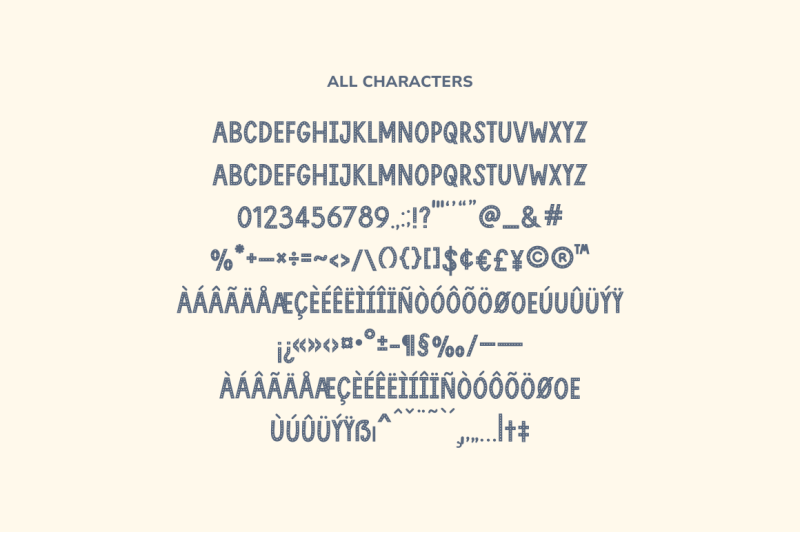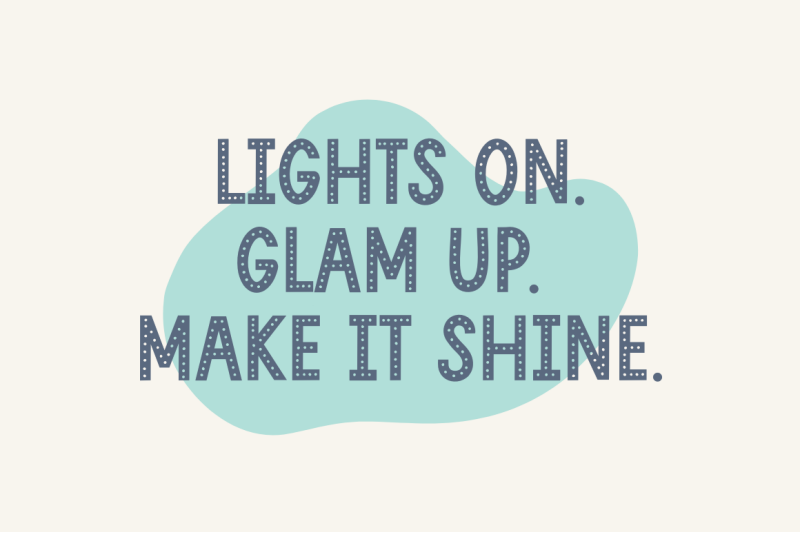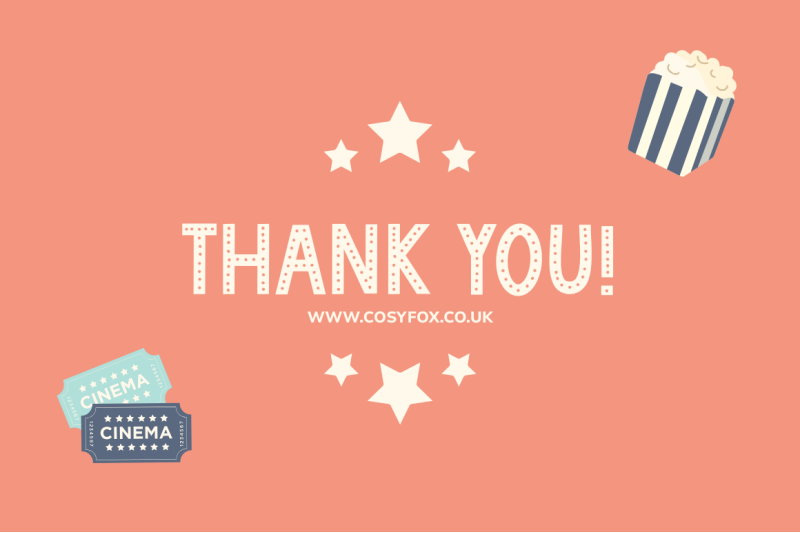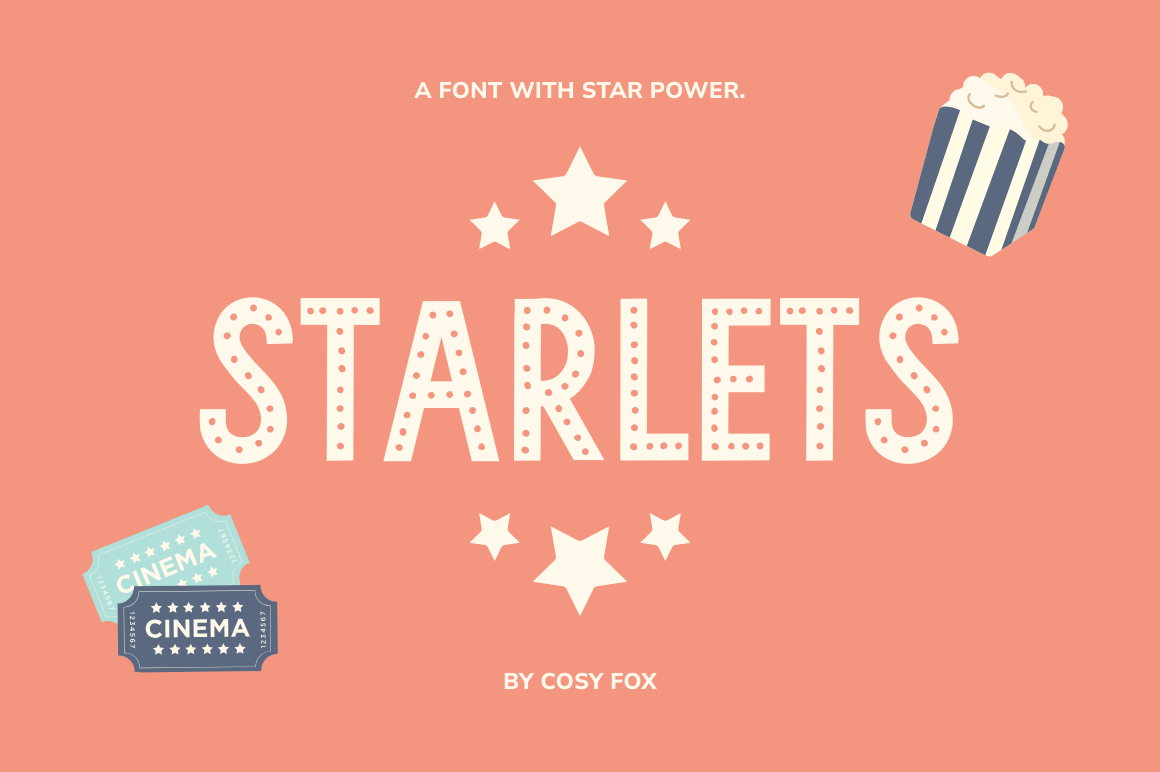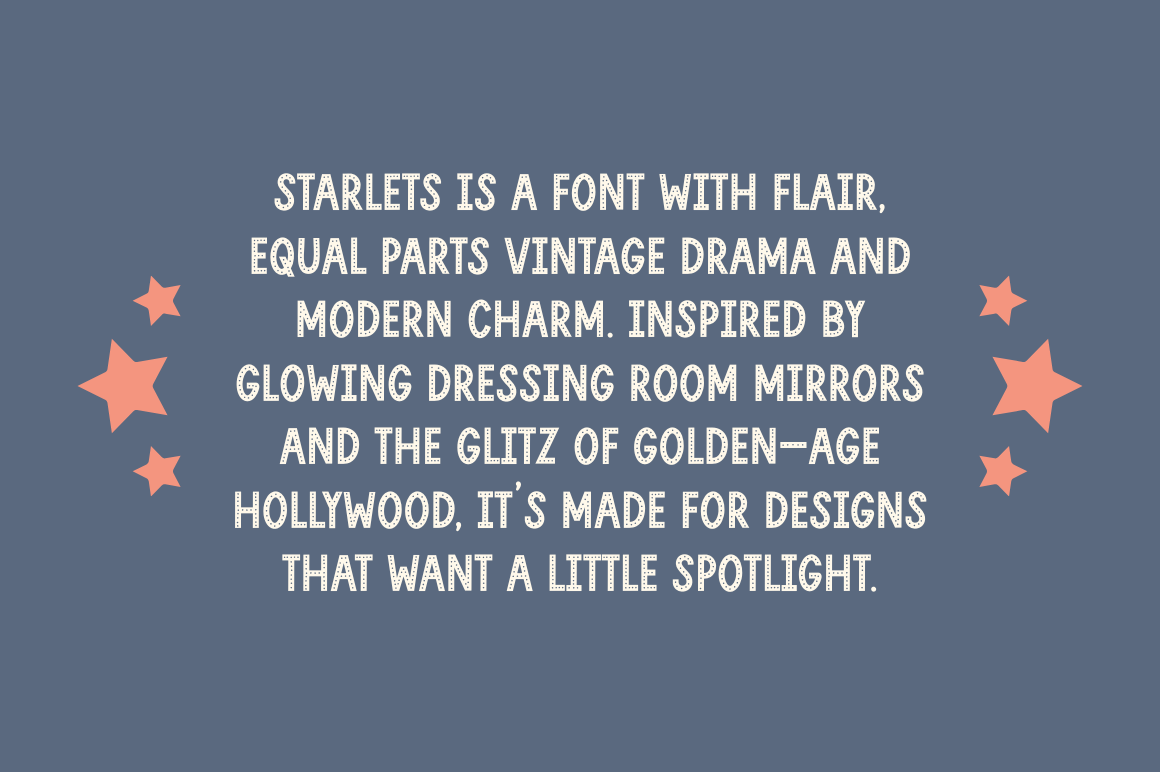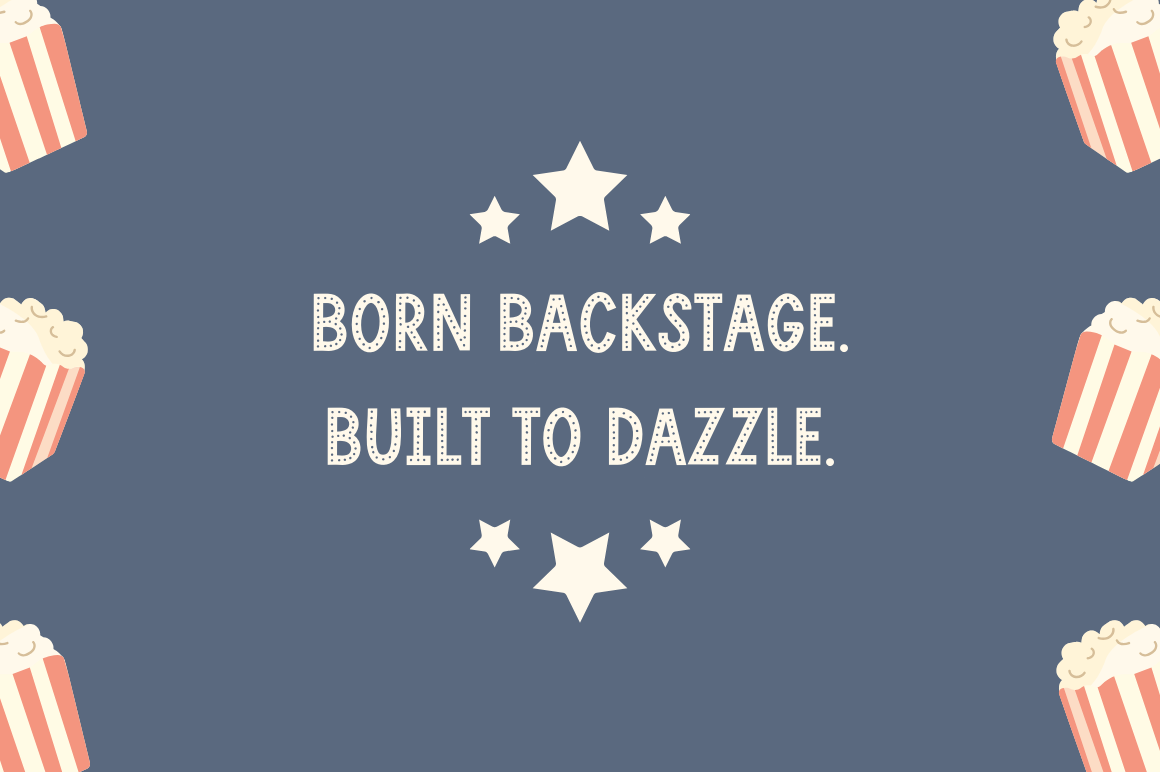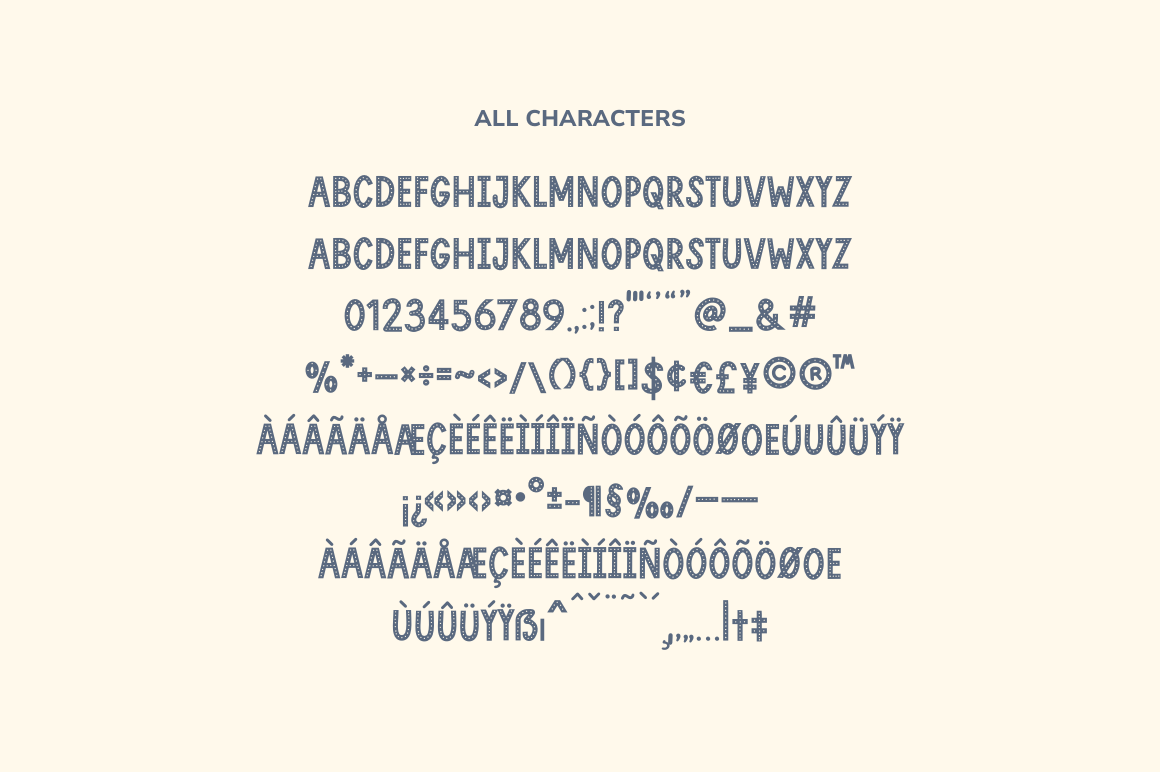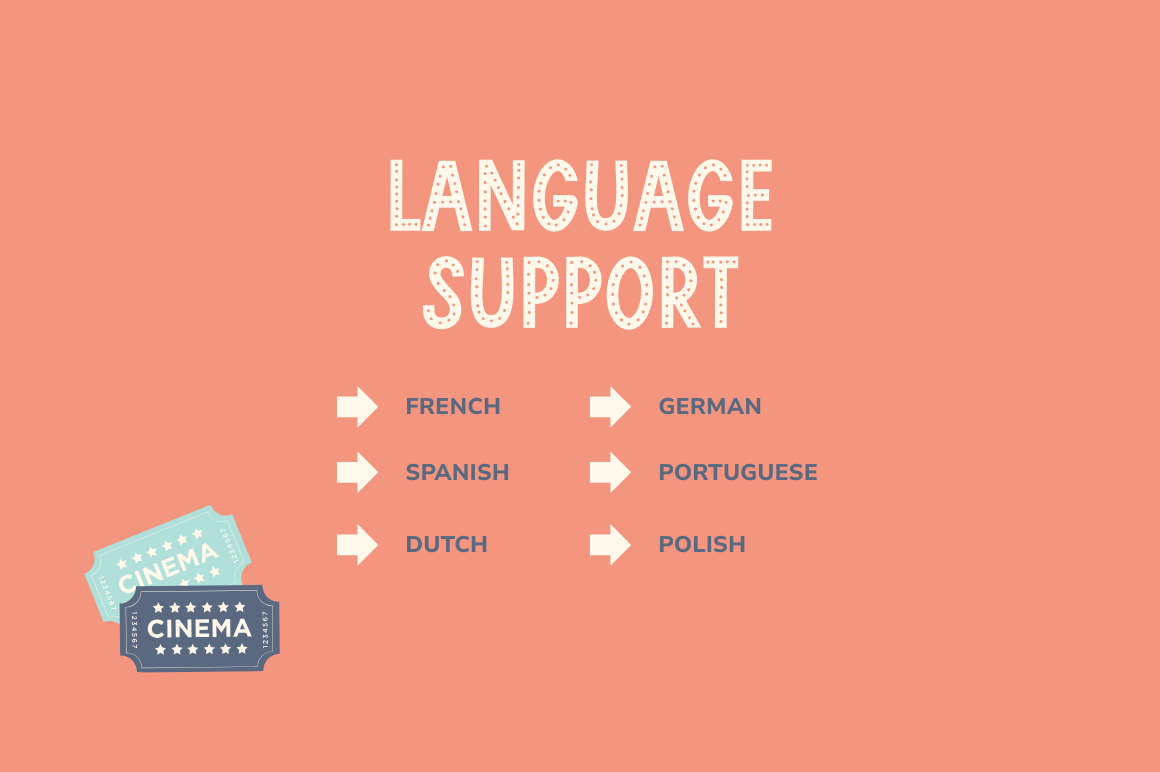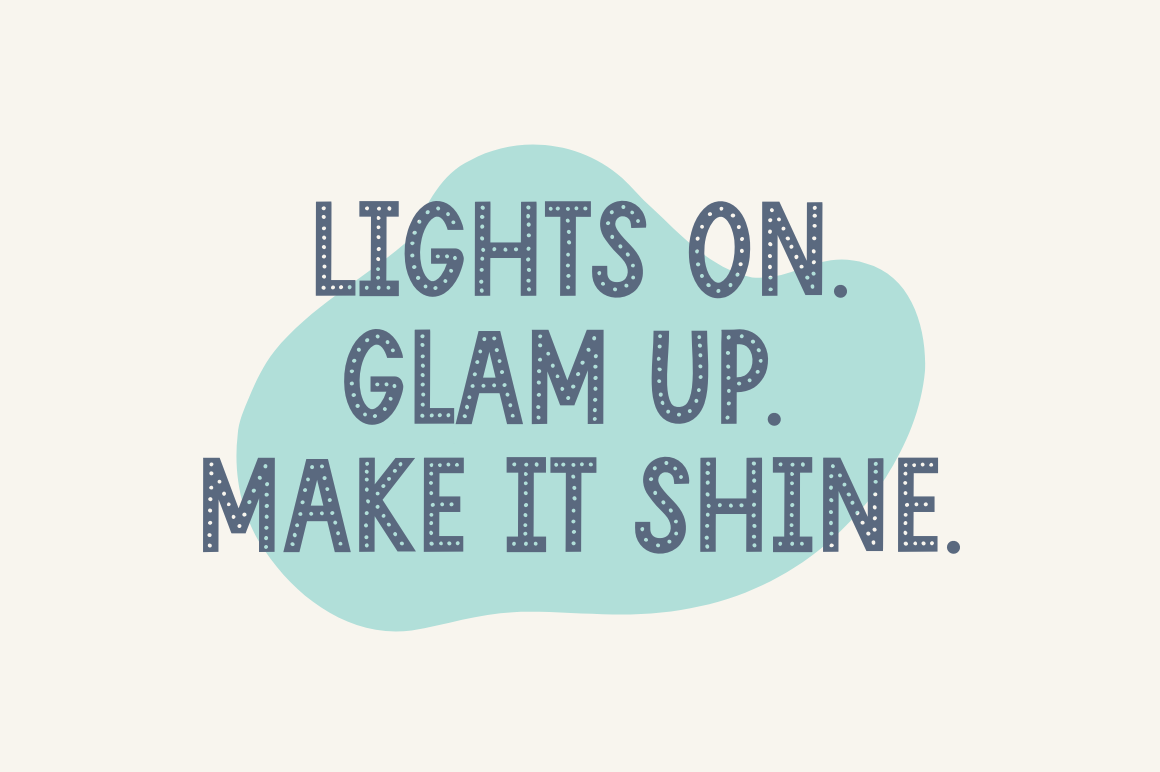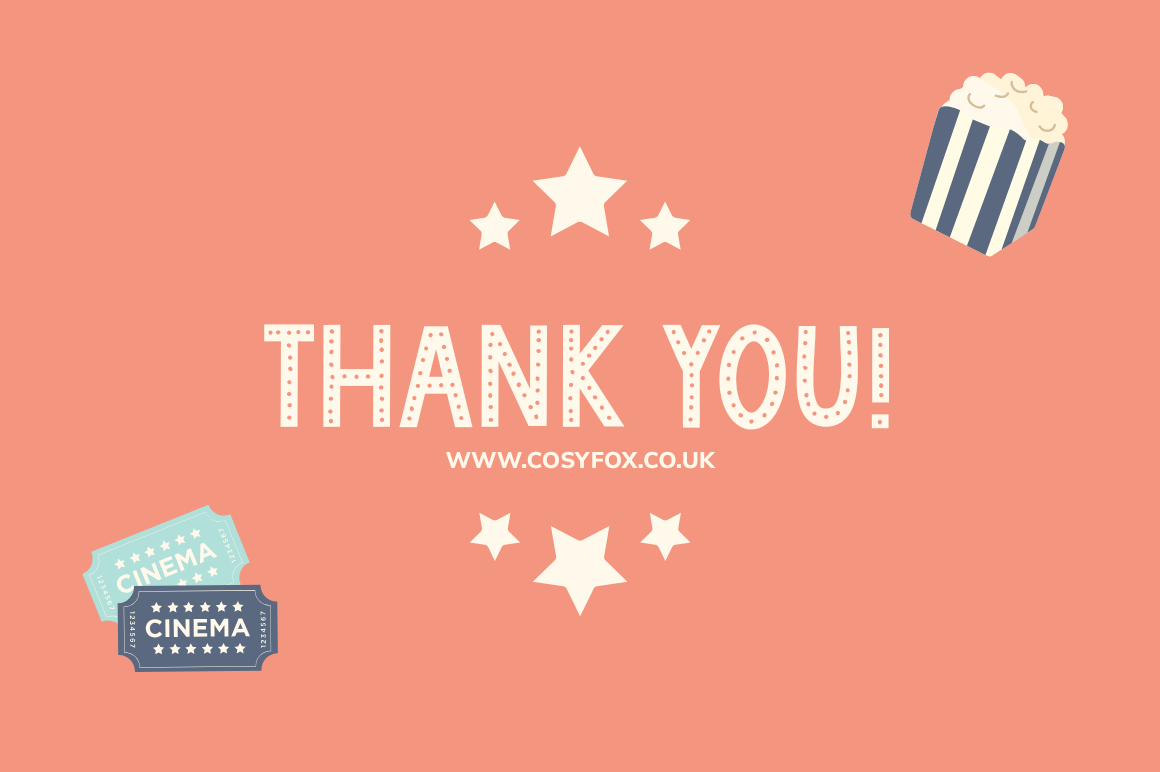
Starlets is a bold, showy display font inspired by vintage dressing room mirrors and the golden age of Hollywood. With dotted accents that mimic glowing lightbulbs, every letter feels like it belongs on a marquee. This font was made for drama—in the best way. Think theatre posters, event invites, beauty branding, cabaret-themed designs, or anything that needs to command attention and sparkle with style. Playful yet polished, Starlets brings the glitz of the 1920s into the now. Easy to use in Canva, Procreate, and your favourite design tools. Language Support: French, German, Spanish, Italian and Portuguese. What You Get: Starlets .OTF font file. How to Install PDF. Thank You! www.cosyfox.co.uk